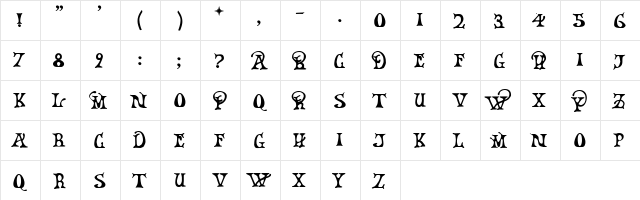
Earthpig Medium Font Preview
Earthpig Medium
Earthpig Medium Font Details
| Foundry | Dave Nalle |
| Designer | Dave Nalle |
Design Context for Earthpig Typeface
Earthpig is a composed and adaptable typeface that performs quietly and consistently across a wide range of design contexts.